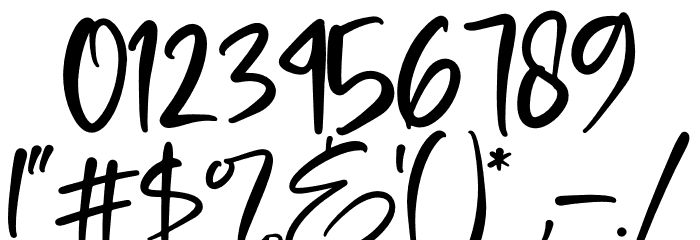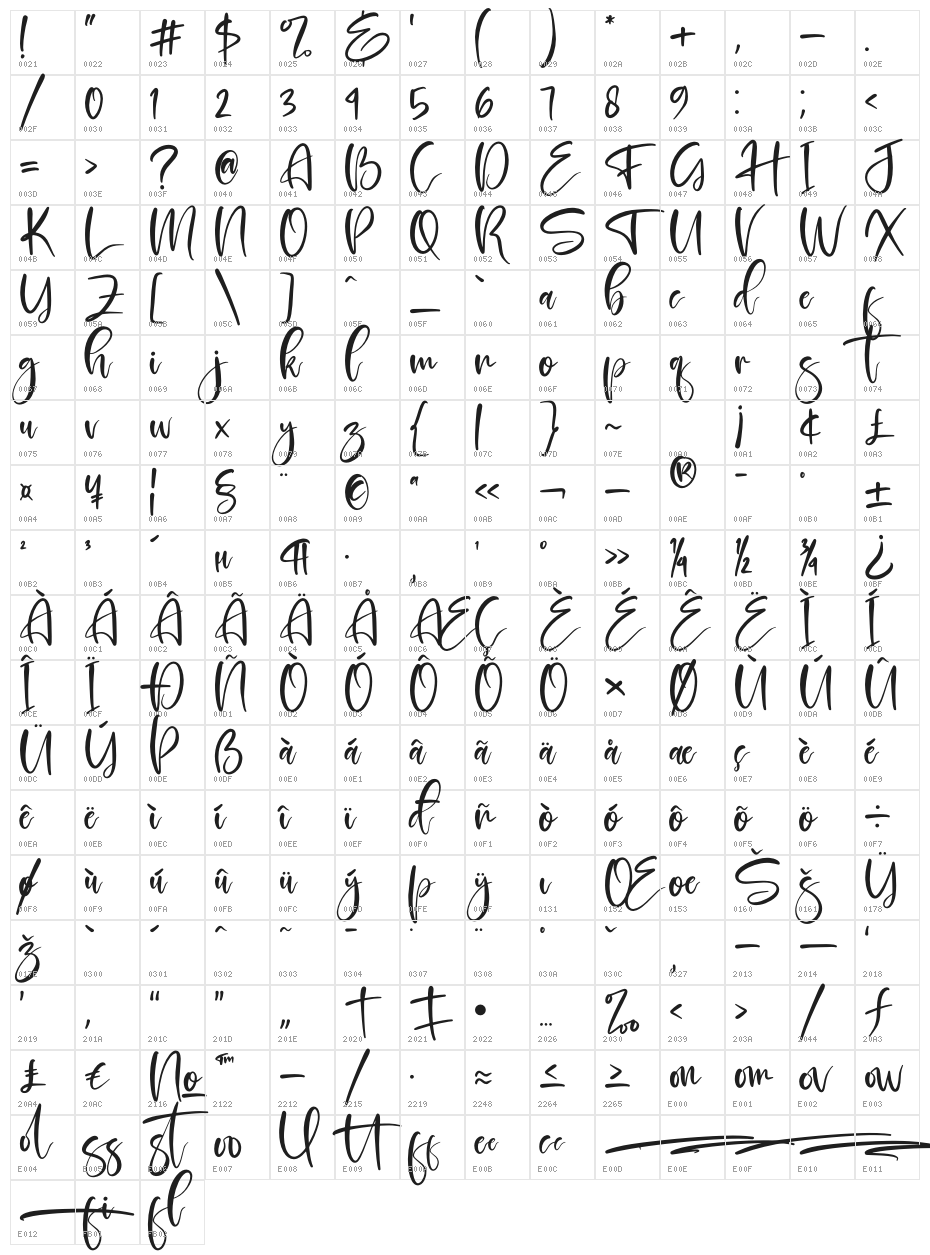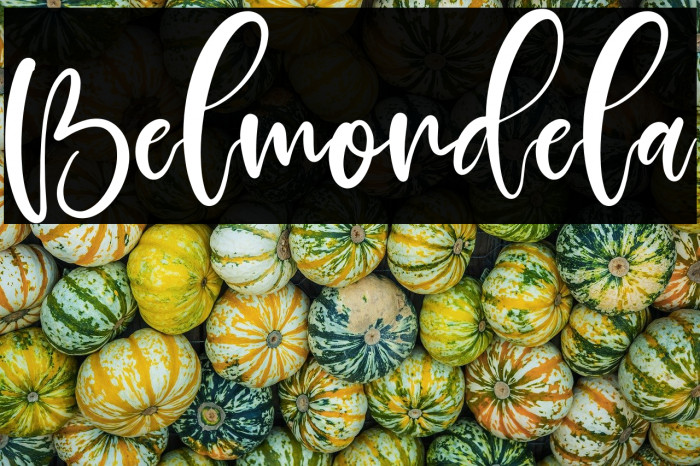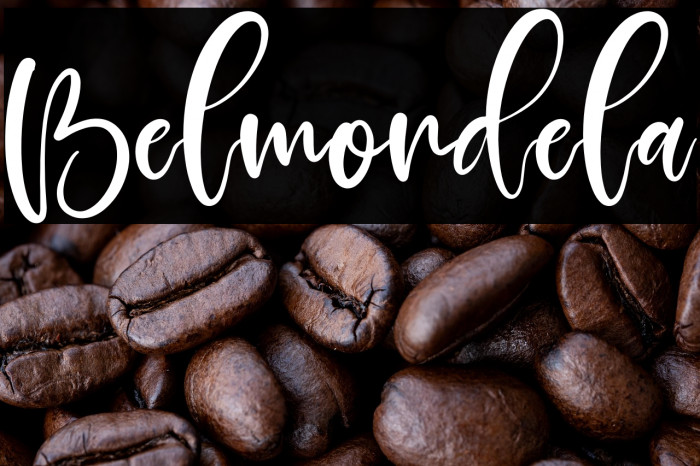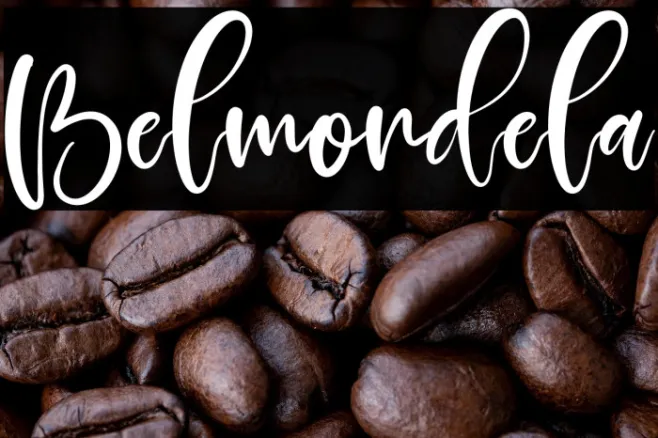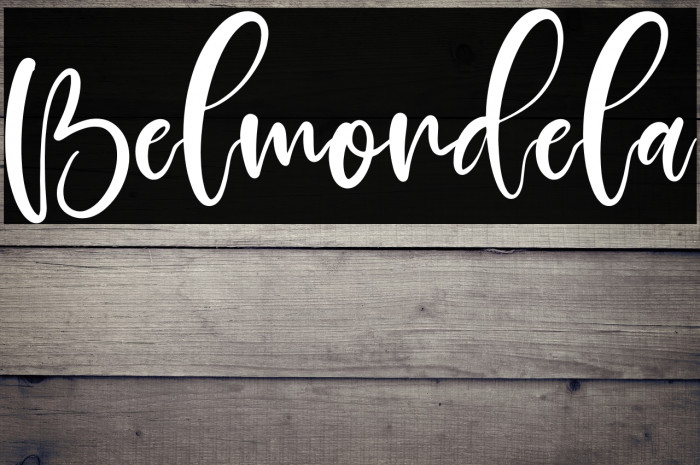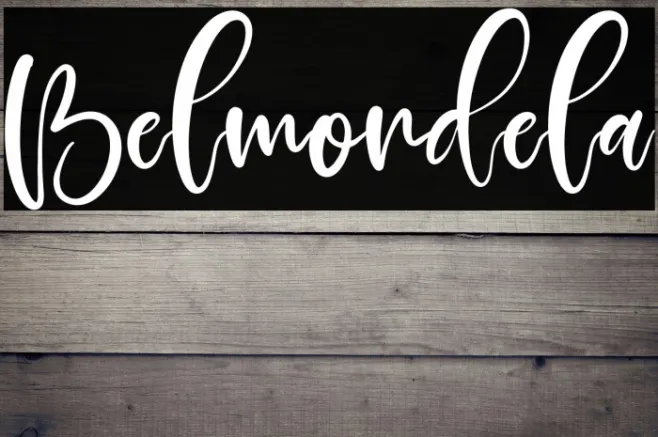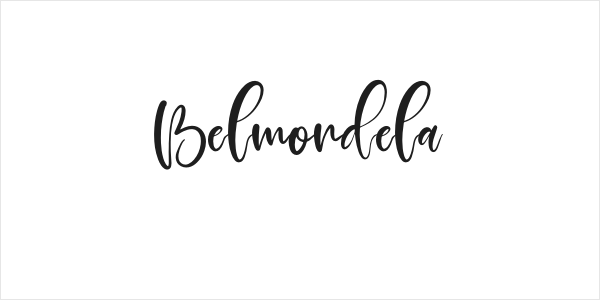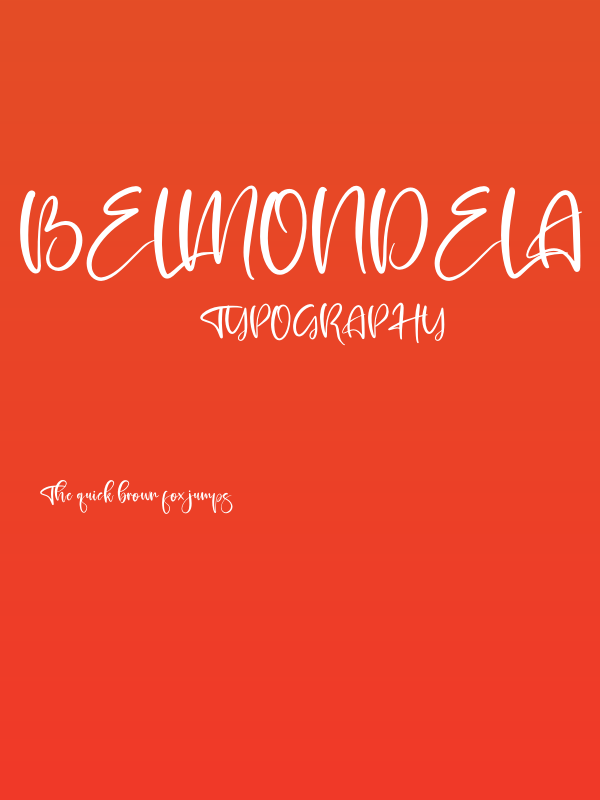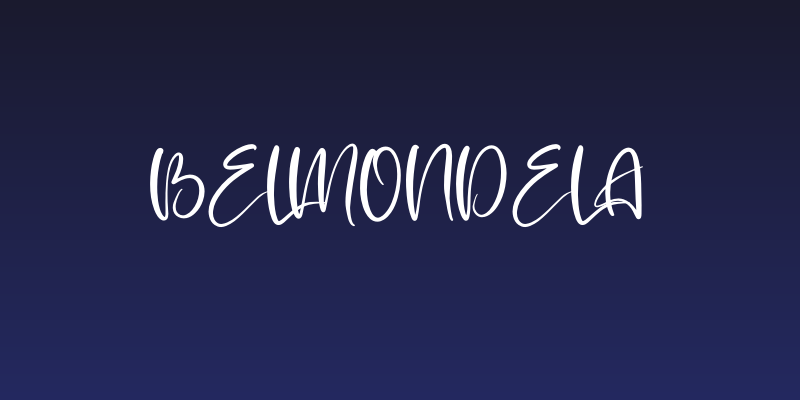
Belmondela Font
Belmondela Description
This font features a dynamic and expressive handwritten style, characterized by its fluid and flowing letterforms. The uppercase letters are bold and slightly slanted, giving a sense of movement and energy. The lowercase letters maintain a consistent style, with some characters featuring elegant loops and swashes that enhance the overall aesthetic. The numerals are distinct and maintain the same lively quality, making them easily readable. Special characters are creatively designed, adding to the font's playful and artistic appeal. This font is perfect for projects that require a personal and creative touch.